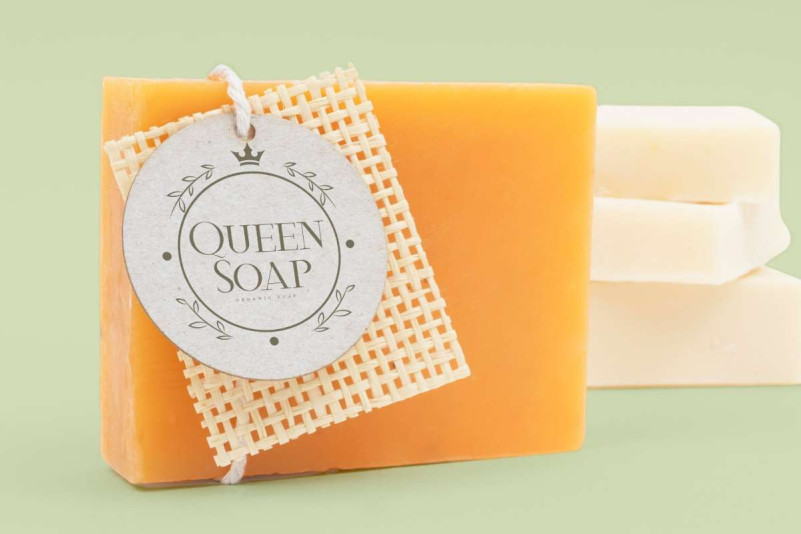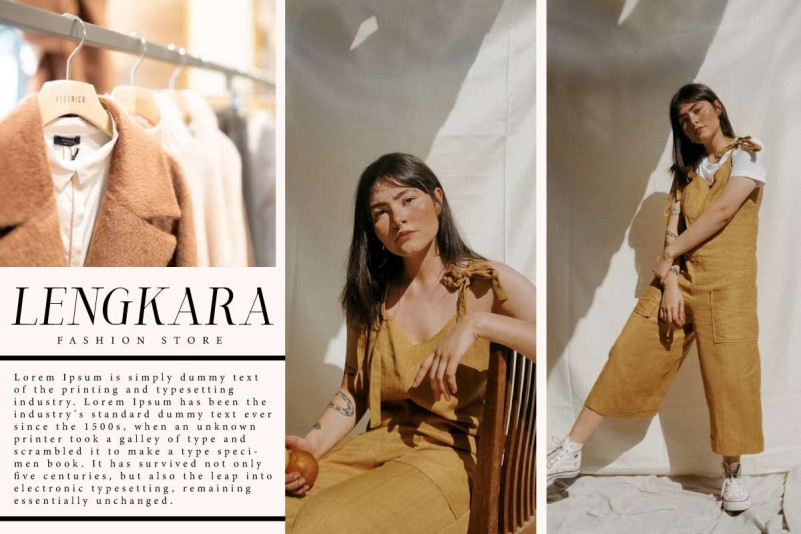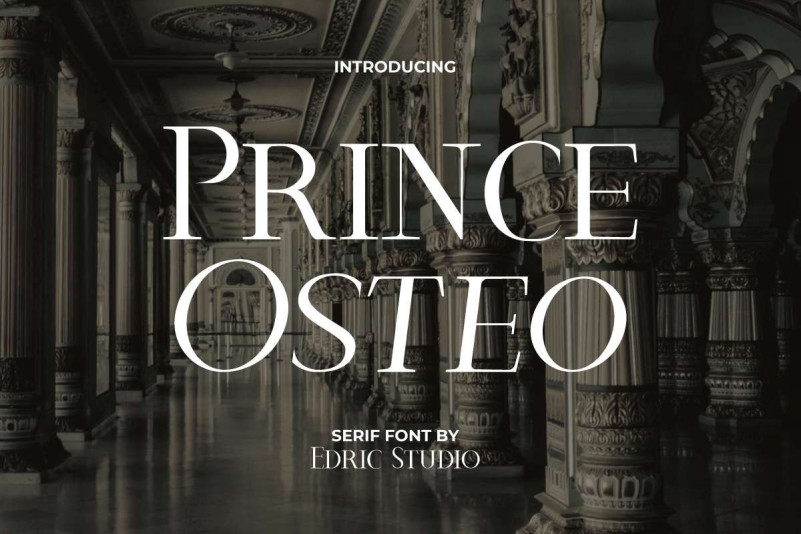
Prince Osteo Font
Prince Osteo Serif Font is a casual serif font with a classy vibe, designed by EdricStudio. This font combines classic and modern looks which will be great for any industry, including : boutique, exhibition, fashion brand, furniture, homeware, interior design, jewelry, real estate, restaurant, retail, photography, and anything that requires a fashionable serif look.
Prince Osteo Font comes with ALL CAPS and has different sizes between Uppercase and Lowercase Characters, Number, large range of Punctuation and Symbol. This font comes with two stunning styles, Regular and Italic. Prince Osteo Font will be great for any projects (with extended license) including : body text, brand logo, catalog, header, label, stationery, sticker, website, etc.